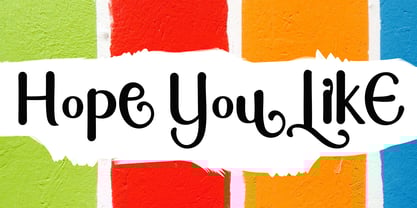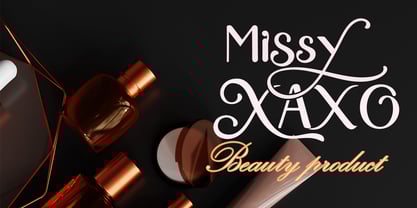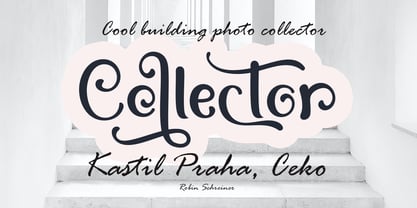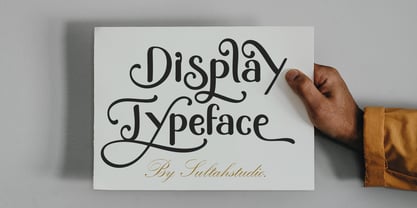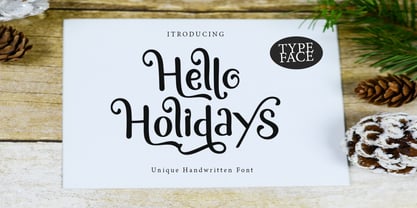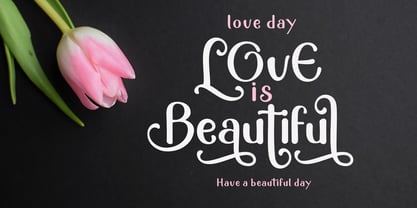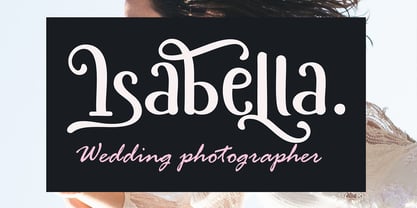
Hello holidays
by Sulthan Studio
The Hello holidays Font Family was designed by Nasrullah and published by Sulthan Studio. Hello holidays contains 1 styles. More about this family
Hello Holliday is an incredibly unique display font. Masterfully designed to become a true favorite, this font has the potential to bring each of your creative ideas to the highest level!